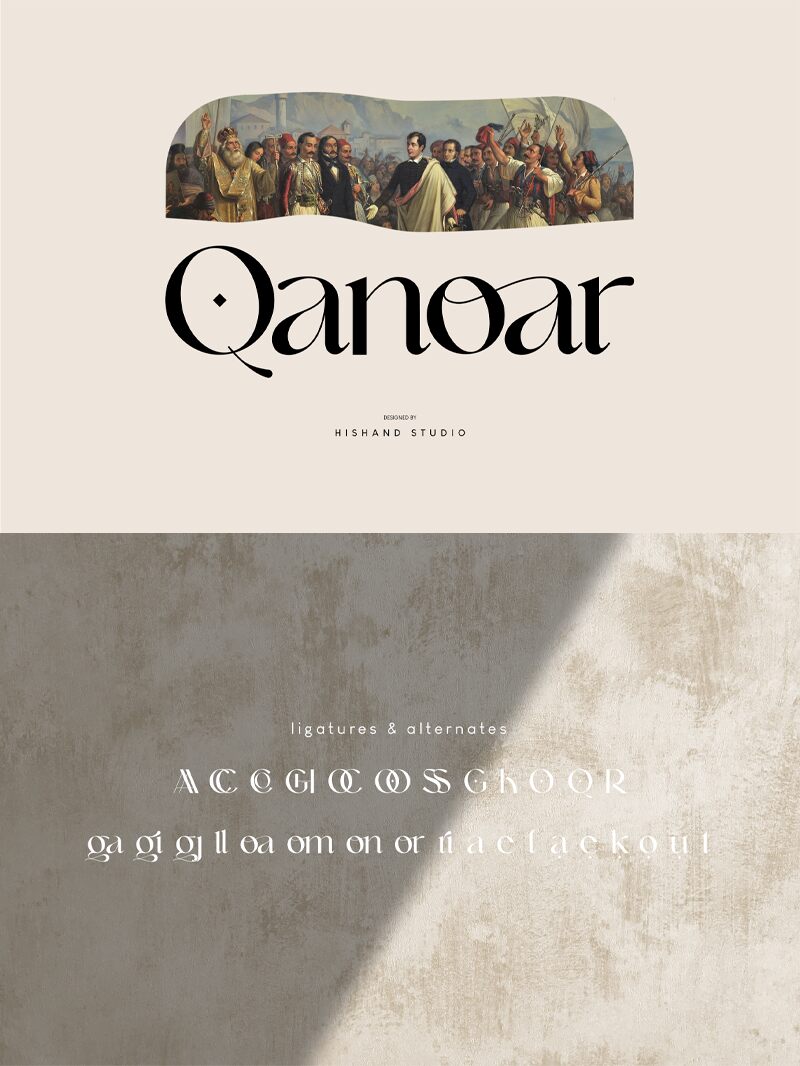
Qanoar, the semi-light font designed by Hishand Studio, exudes elegance and sophistication.
With its delicate curves and slender strokes, this font is perfect for luxury branding projects, such as high-end fashion labels or exclusive jewelry lines. Its refined appearance also makes it a suitable choice for editorial designs, including magazines and book covers. Qanoar's versatility shines through in user interfaces as well, enhancing the user experience with its clarity and readability.
Whether you're aiming for a minimalistic or glamorous aesthetic, Qanoar is the ideal choice to elevate your designs to new heights.
Qanoar
Hishand Studio